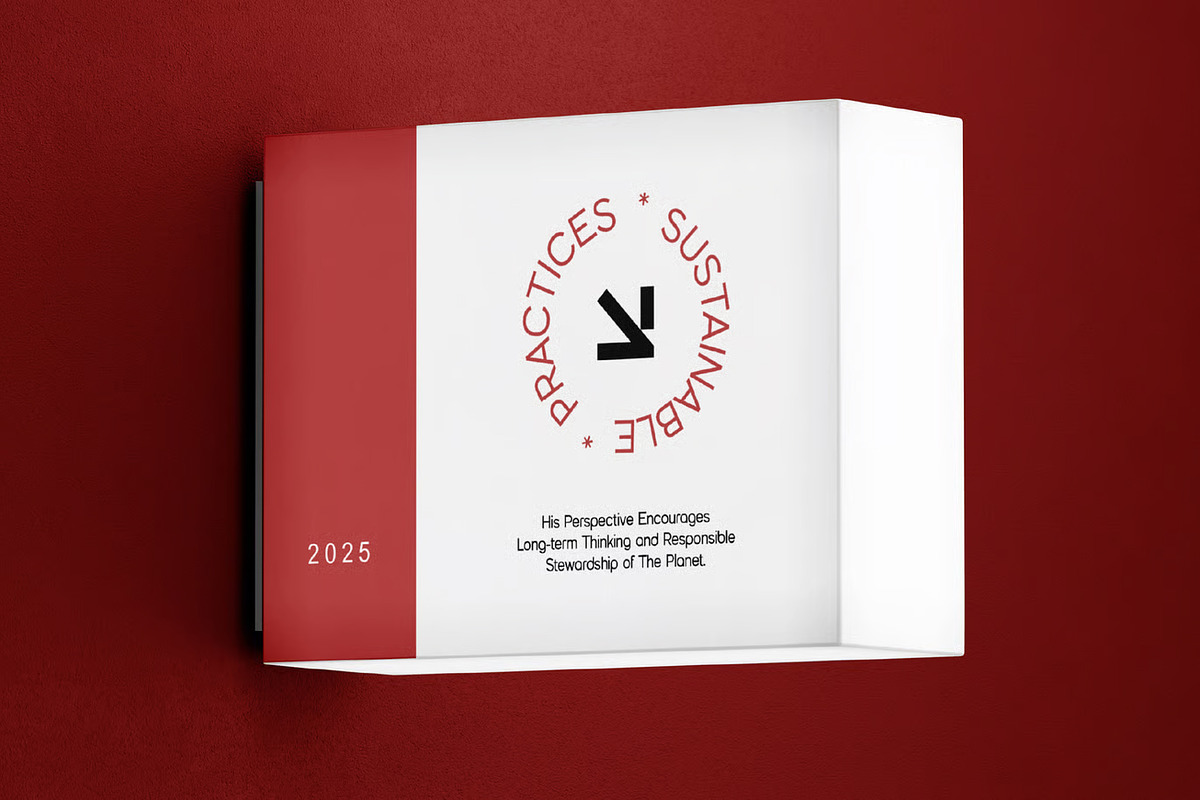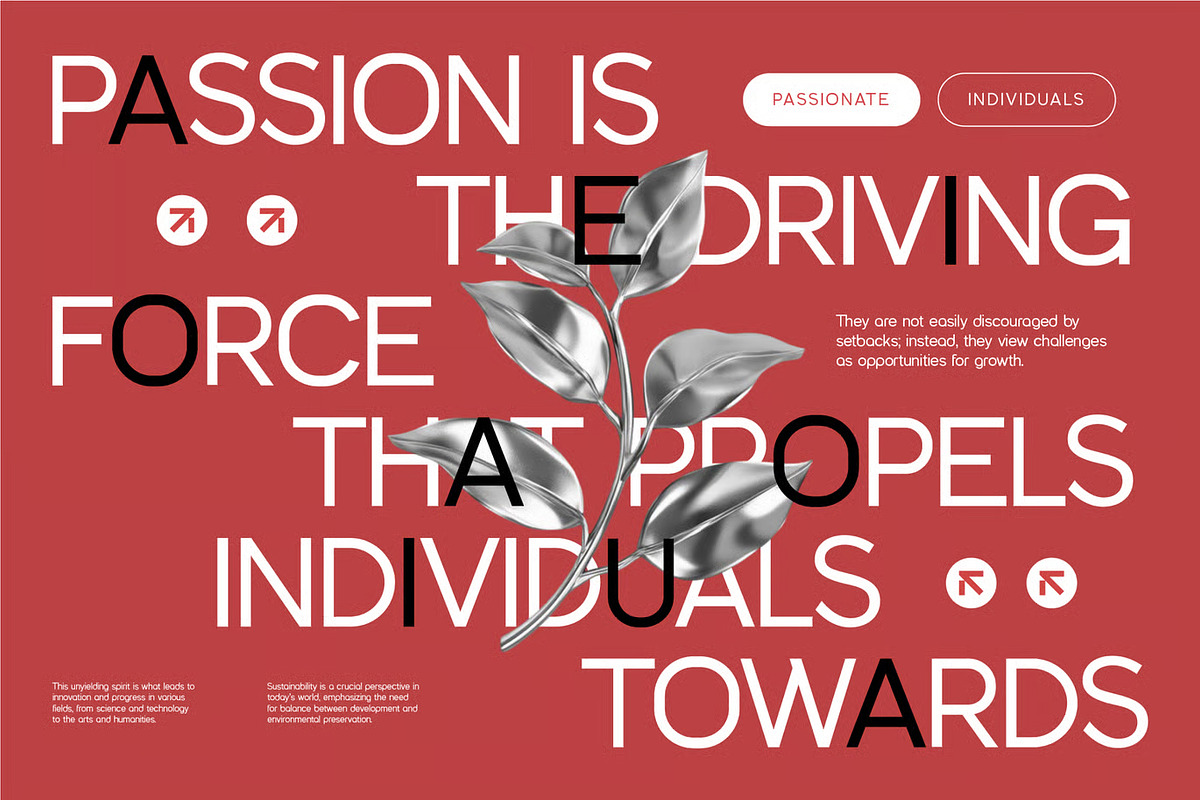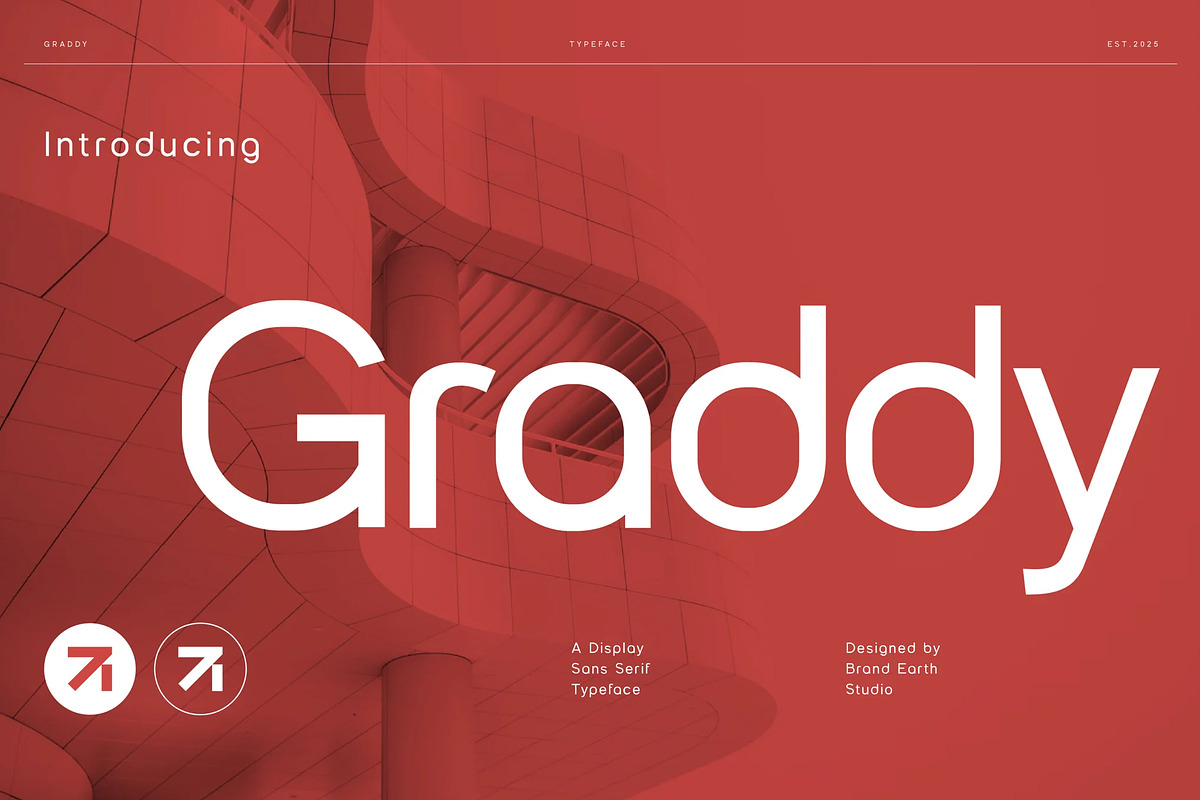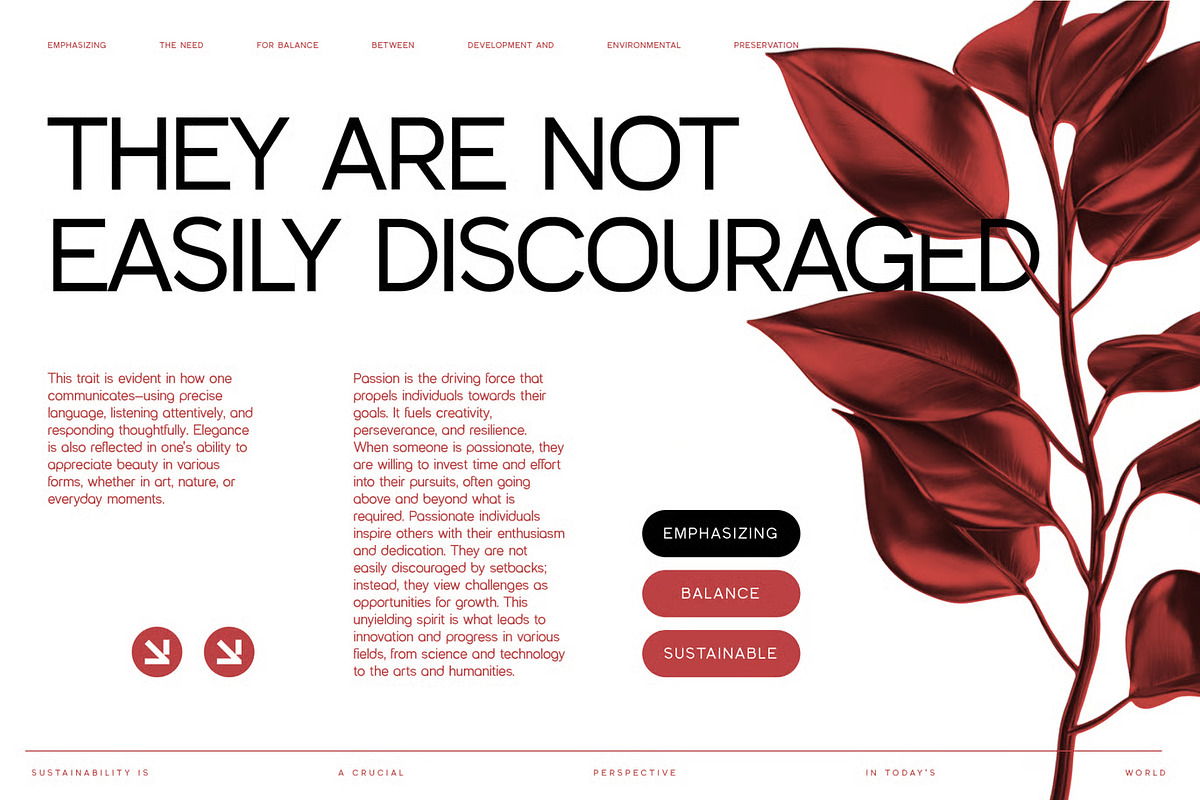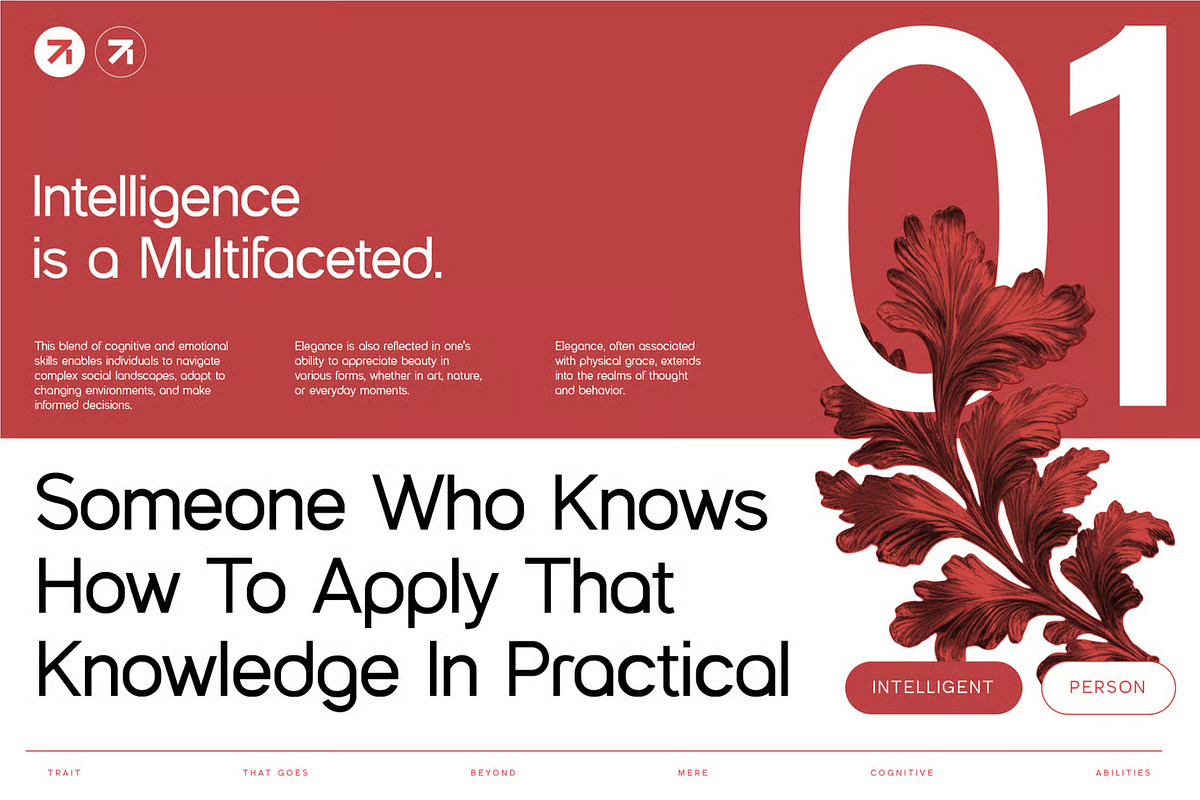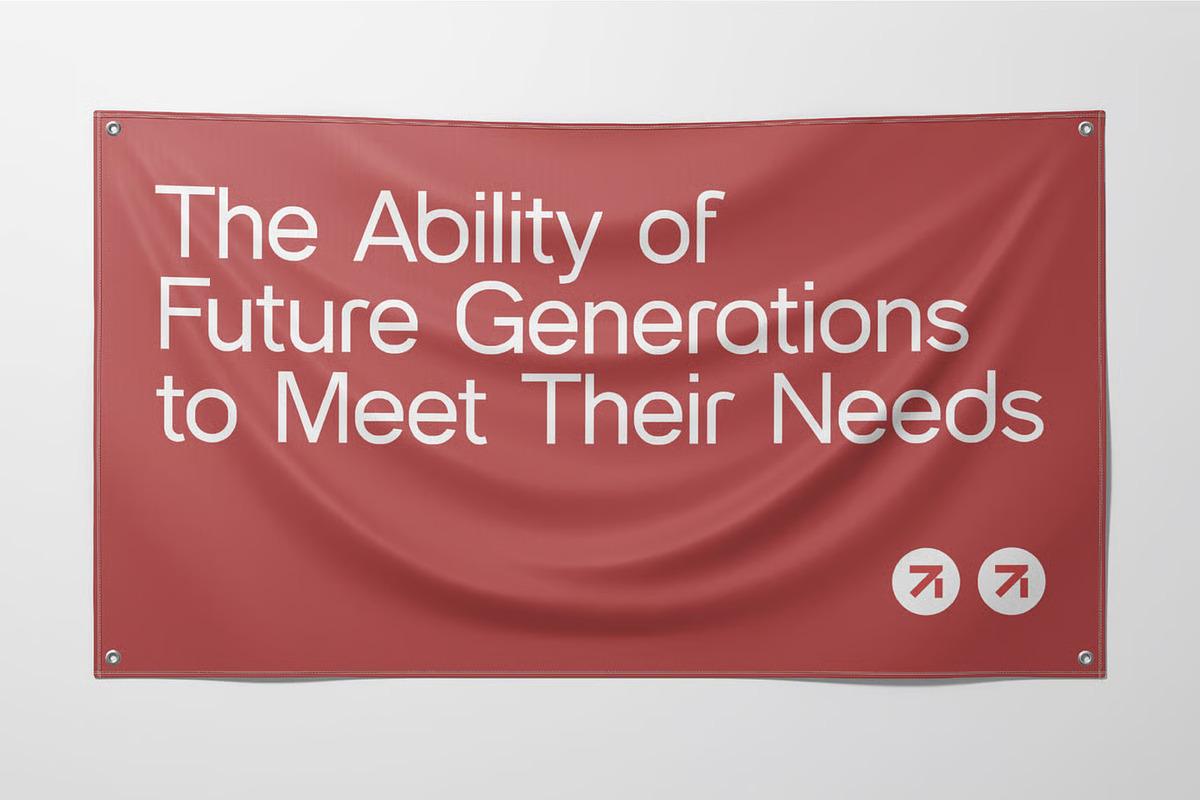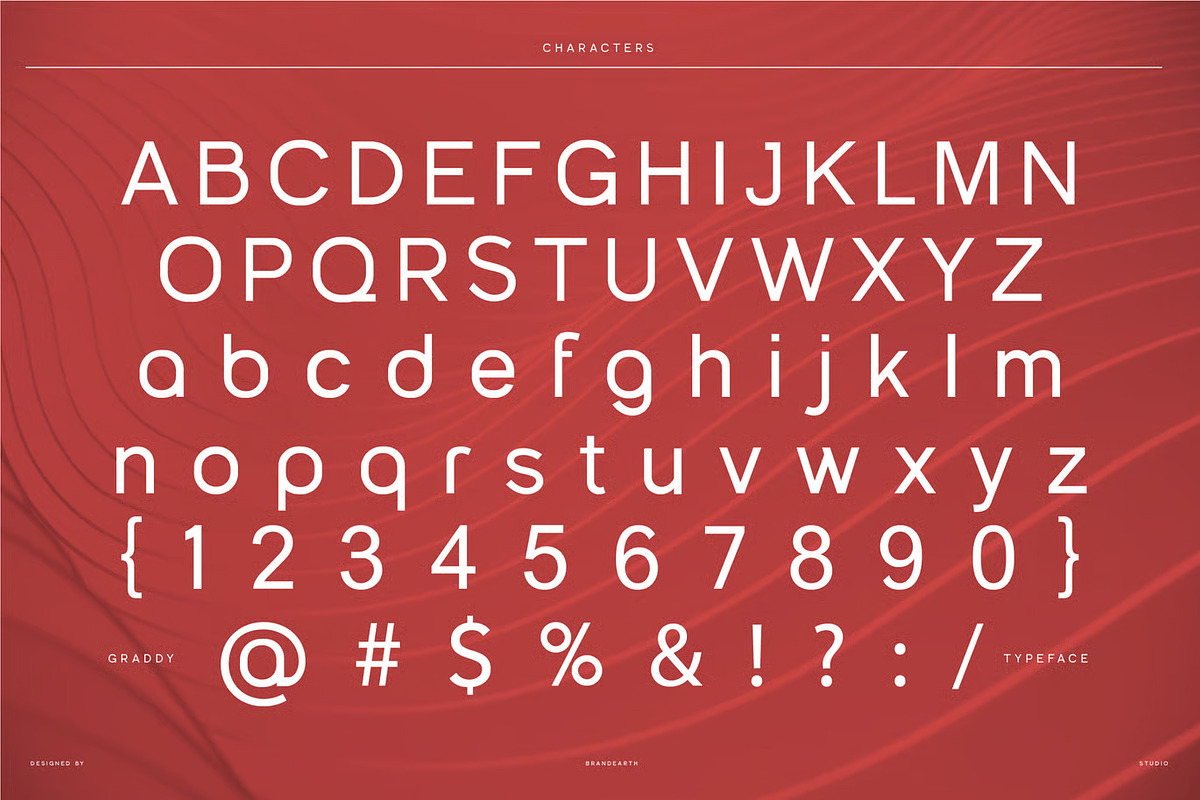
Graddy – Display Sans Serif Typeface
Graddy is a modern sans serif display font designed with clean lines, open curves, and balanced proportions. It offers a fresh, minimalistic appearance that feels both contemporary and friendly. Designed to evoke a sense of clarity and sophistication, it blends effortlessly into clean and modern branding contexts.
Graddy is highly legible and aesthetically versatile, making it a strong choice for projects that require clarity and visual sophistication. With its rounded terminals and even rhythm, this typeface fits well in both digital and print environments—offering a natural balance of style and readability.
Graddy font is ideal for modern sans serif design projects such as branding, corporate font identities, startup presentations, app UI, and web layouts. It can elevate premium brand identities, making it an excellent choice for female-oriented brands, luxury brands, or modern lifestyle content—bridging the gap between minimalism and sophistication.
Main Features
Numeral & Punctuations
Suitable For: branding, corporate font identities, startup presentations, app UI, web layouts, minimalist portfolios, editorial content, logo design, fashion catalogs, product packaging, social media graphics, modern wedding invitations, luxury brands, female-oriented brands, modern lifestyle content, business cards, real estate brochures, cosmetic product labels.